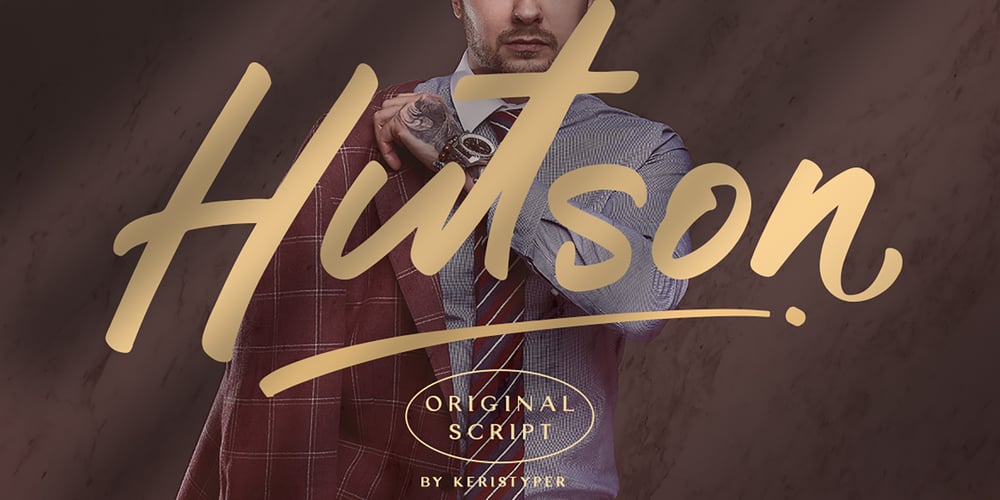
Hutson Font Family was designed by Tezar Tantular and published by Keristyper Studio. Hutson contains 1 styles and family package options. Hutson is a brush script typeface created by skilled hands which makes it look very refined. Its subtle shapes make this font suitable for all your projects.Hutson Brush Script is perfect for branding projects, logos, wedding designs, social media posts, advertisements, product packaging, product designs, label, photography, watermark, invitation, stationery, and any projects that need handwriting taste.Hutson Font multilingual support: Afrikaans, Albanian, Catalan, Danish, Dutch, English, Estonian, French, Finnish, German, Icelandic, Indonesian, Italian, Malay, Norwegian, Portuguese, Spanish, Swedish, Zulu, and many more.What’s Included : Web Fonts Standard & Multilingual glyphs Ligature Works on PC & Mac Simple installations Accessible in Adobe Illustrator, Adobe Photoshop, Adobe InDesign, and even work on Microsoft Word. Hope you enjoy our font!